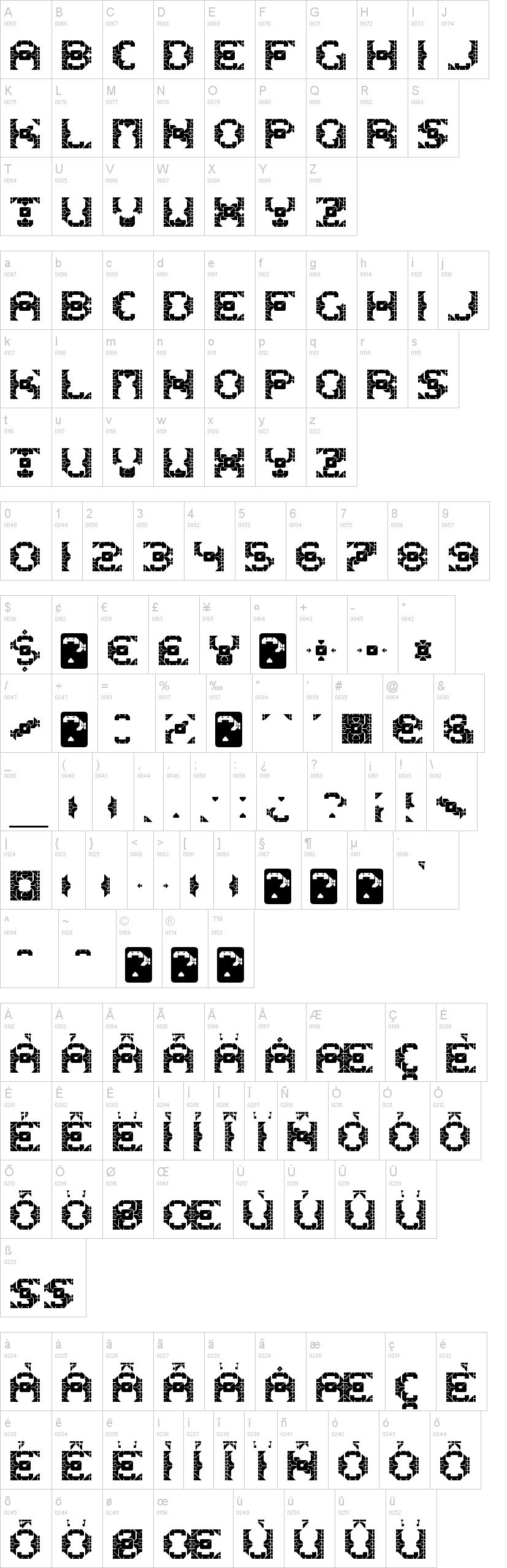
Шрифт Dazzle Ships
Dazzle Ships is a segmented LED font from worlds unknown. Don't forget to read the files inside the zip for details. Updated in 2012.